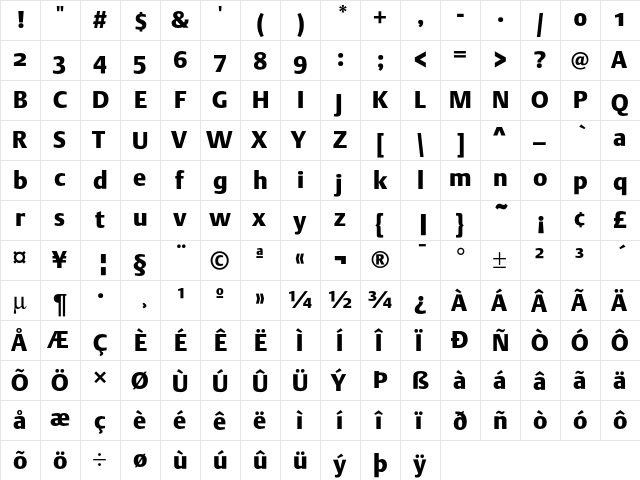
DTL Argo ST Black
| Style | ST Black |
Design Context for DTL Argo Typeface
DTL Argo takes a measured approach to typography — its balanced proportions and neutral character make it a reliable workhorse for both digital and print work.
Pro Tip: Use DTL Argo in both headline and body roles to test its range before committing to a single application.